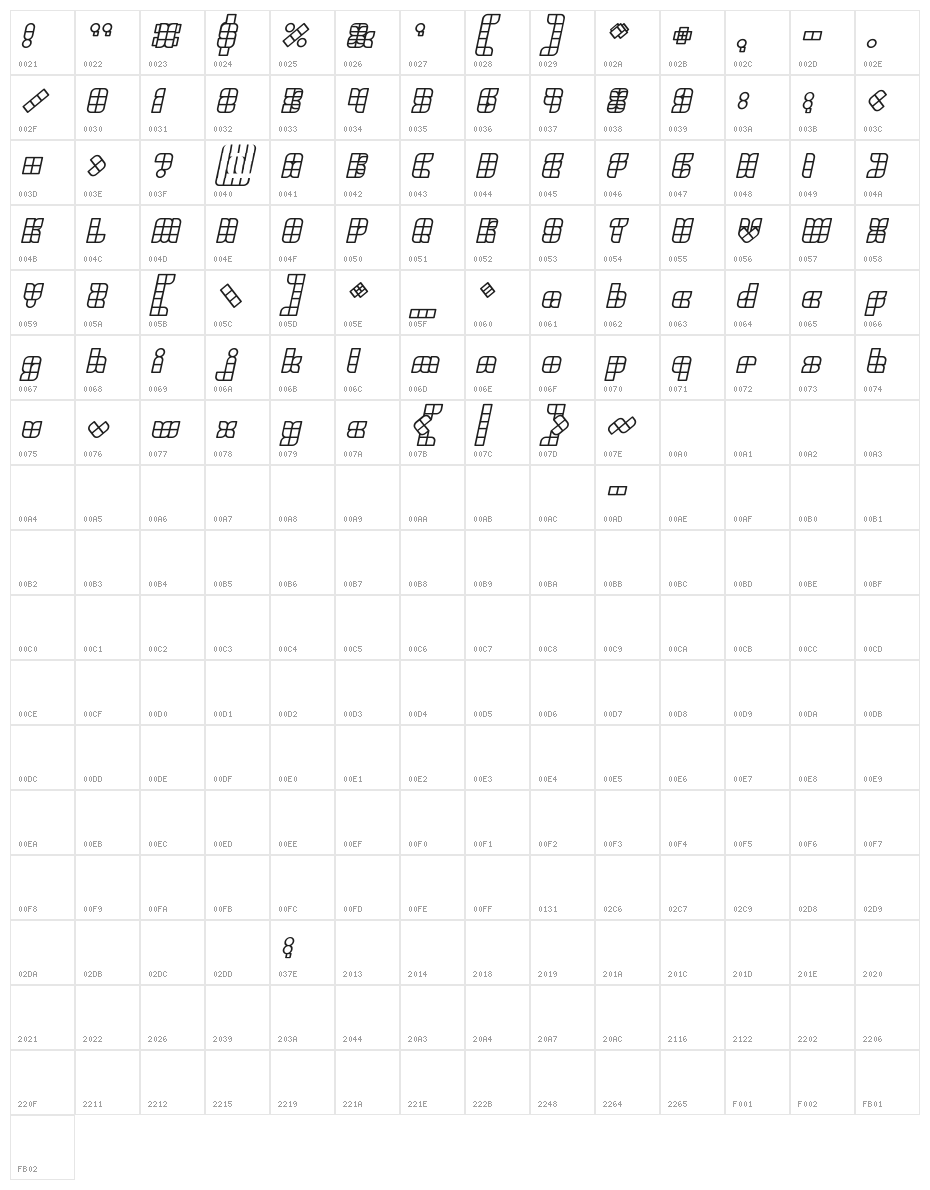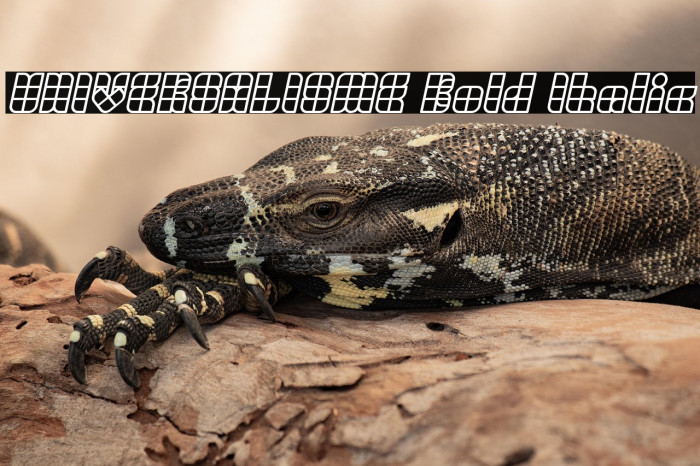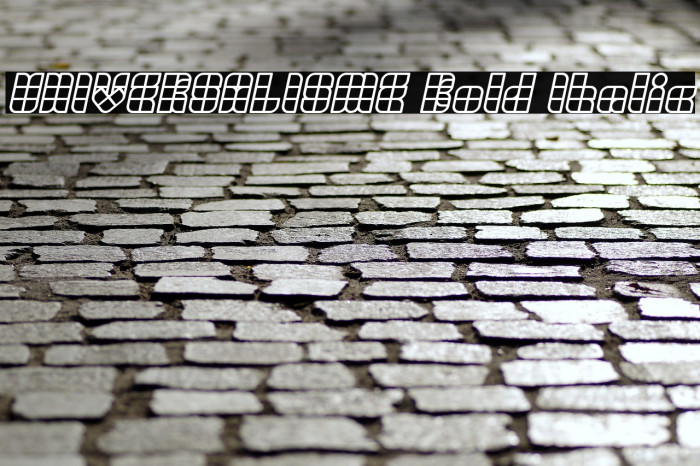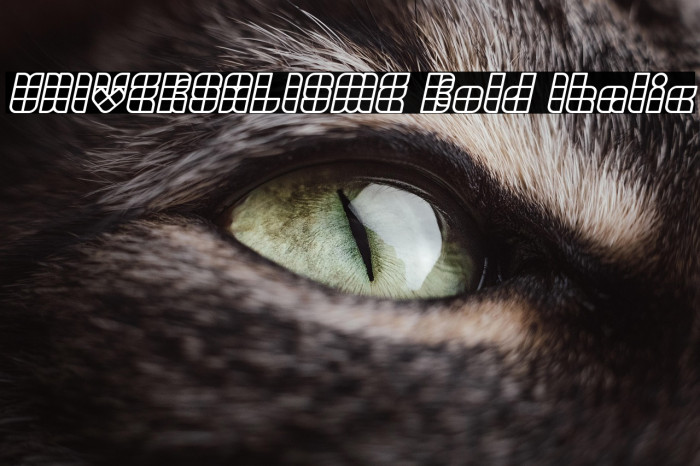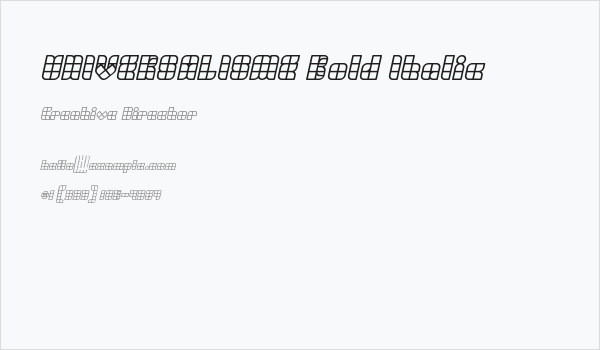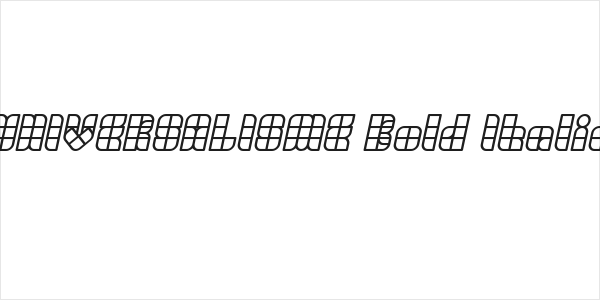
UNIVERSALISME Bold Italic Font
UNIVERSALISME Bold Italic Description
This font features a bold and italicized style with a unique geometric design. Each character is composed of a series of interconnected lines and shapes, creating a grid-like appearance. The letters are outlined, giving them a hollow look that adds to the modern and futuristic feel. The font maintains a consistent thickness throughout, with no variation in stroke width, which contributes to its uniform and structured aesthetic. The characters are slightly slanted, enhancing the italic effect and providing a sense of movement. This font stands out with its decorative and display qualities, making it ideal for eye-catching designs.
| Proposed Projects | Ideal for futuristic branding, tech-related projects, posters, and digital art. |